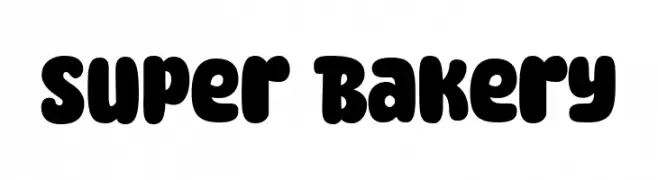
Minimalist handwritten font with a casual style.
A hand-drawn, textured font with a rustic, vintage appeal.
A cursive font with elegant loops and artistic swashes.
A playful, handwritten font with smooth, flowing curves and a whimsical style.
A bold, geometric font with dynamic angles and high contrast.
A bold, playful font with a hand-drawn, energetic style.
Bold, shadowed font with a modern, geometric style.
A bold, three-dimensional font with a vintage, retro flair.